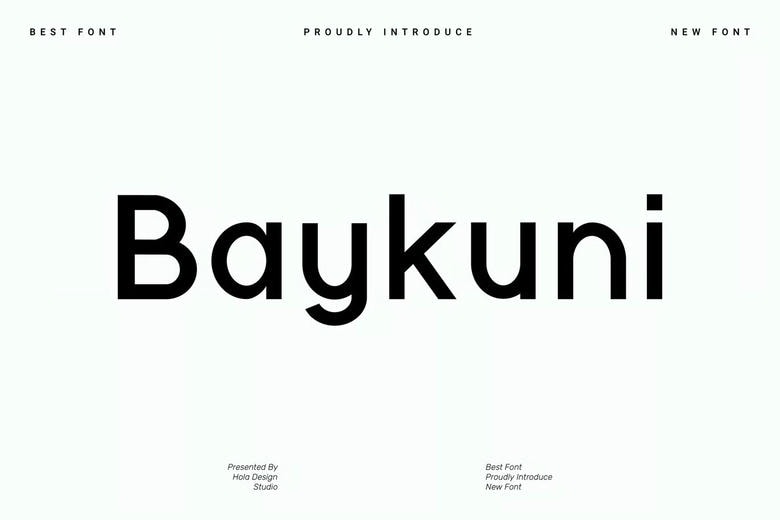
Baykuni Font
Baykuni is a clean, high-quality sans-serif font created by holadesignstd. You can download it for free and use it for personal projects. It works well for labels, movie scenes, posters, titles, gigs, album covers, logos, and more.
Baykuni Sans Serif Font